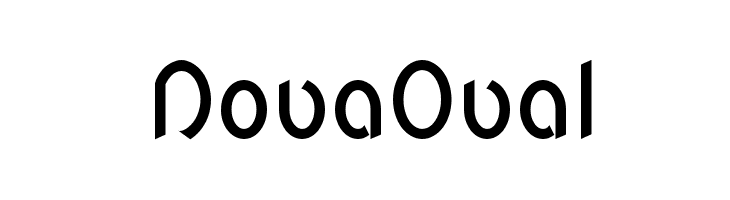
A clean and modern sans-serif font with consistent stroke weight and balanced proportions.
A playful, rounded font with geometric elements and consistent stroke widths.
A clean, modern font with consistent stroke width and excellent readability.
A modern sans-serif font with clean lines and consistent spacing, though not fully displayed.